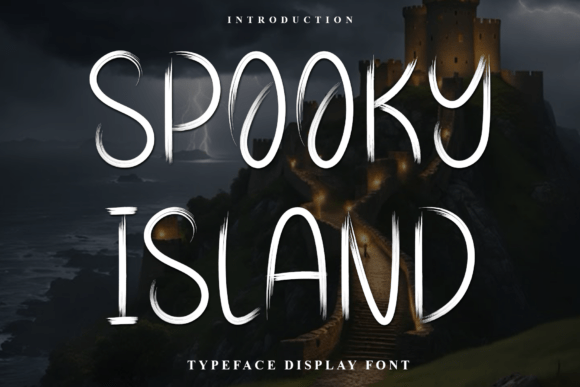
Spooky Island Font: A Unique and Versatile Typeface for Creative Projects
The Spooky Island Font is a beautiful and eye-catching typeface that has been designed with a soft, unique touch. Its distinctive strokes give it a special character, making it meaningful and versatile for future use. With various characters, this font is perfect for design projects, crafts, and other creative works. In this article, we will explore the features and benefits of the Spooky Island Font, and how it can enhance your designs.
What is Spooky Island Font?
Spooky Island Font is a natural font style that has been designed to be both aesthetically pleasing and highly functional. Its unique and soft touch makes it stand out from other fonts, and its versatility ensures that it can be used in a wide range of creative projects. Whether you’re working on a design project, crafting a logo, or creating a piece of art, the Spooky Island Font is an excellent choice.
Key Features of Spooky Island Font
- Unique and Soft Touch: The Spooky Island Font has been designed with a soft, unique touch that sets it apart from other fonts.
- Distinctive Strokes: The font’s distinctive strokes give it a special character, making it meaningful and versatile for future use.
- Various Characters: The Spooky Island Font comes with a range of characters, making it perfect for design projects, crafts, and other creative works.
Benefits of Using Spooky Island Font
The Spooky Island Font offers a range of benefits for designers, artists, and crafters. Some of the key benefits include:
- Enhances Designs: The Spooky Island Font can enhance your designs, making them appealing to many audiences across different artistic and creative fields.
- Versatility: The font’s versatility ensures that it can be used in a wide range of creative projects, from design and crafting to art and illustration.
Who Can Use Spooky Island Font?
The Spooky Island Font is perfect for a wide range of users, including:
- Designers: Graphic designers, UI/UX designers, and other professionals can use the Spooky Island Font in their design projects.
- Artists: Artists, illustrators, and crafters can use the font in their creative works.
- Students: Students can use the Spooky Island Font in their school projects, presentations, and assignments.
- Business Owners: Business owners can use the font in their branding, marketing materials, and website design.
Tips for Using Spooky Island Font
Here are some tips for using the Spooky Island Font:
- Use in Combination with Other Fonts: Use the Spooky Island Font in combination with other fonts to create a unique and visually appealing design.
- Experiment with Different Sizes: Experiment with different font sizes to create a hierarchy of text and add visual interest to your design.
- Use in Digital and Print Materials: Use the Spooky Island Font in both digital and print materials, such as brochures, posters, and business cards.
The Spooky Island Font is a unique and versatile typeface that is perfect for creative projects, design, and crafting. Its soft, unique touch and distinctive strokes make it stand out from other fonts, and its compatibility with various applications ensures that it can be used across different platforms. With its range of characters and ease of use, the Spooky Island Font is an excellent choice for designers, artists, and crafters.
- What is the Spooky Island Font? The Spooky Island Font is a natural font style that has been designed with a soft, unique touch.